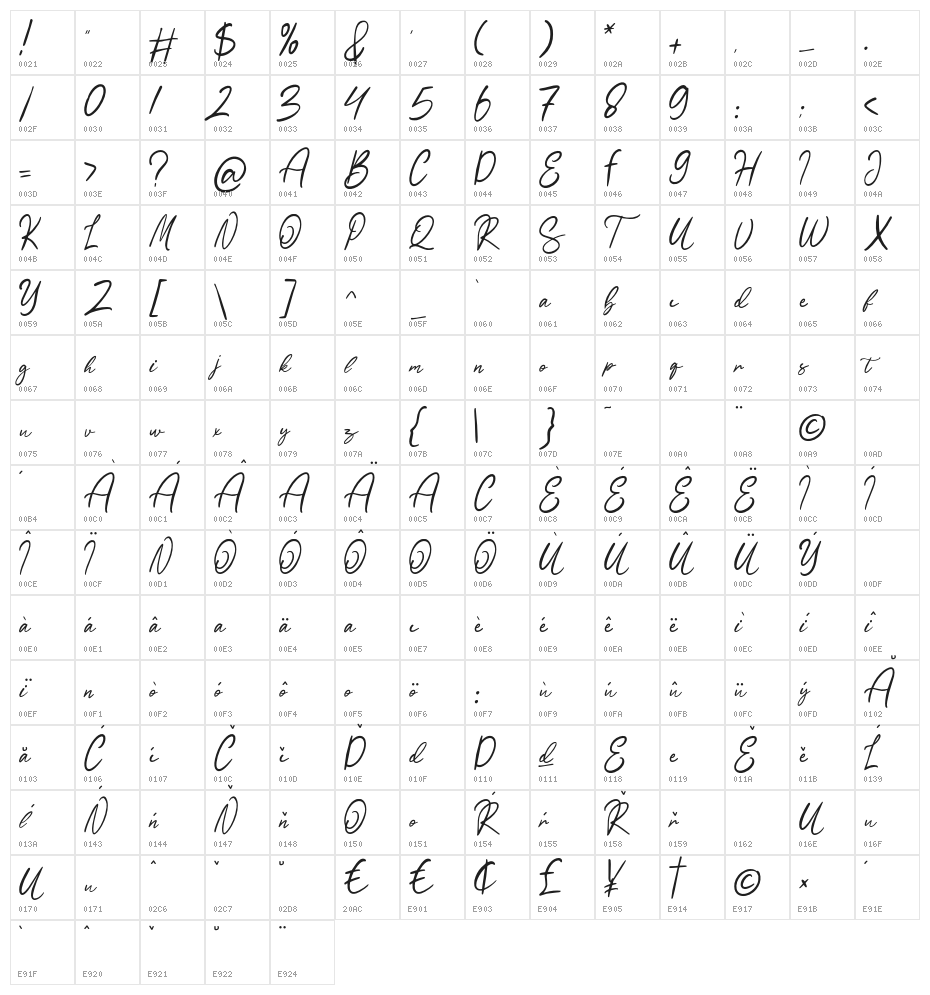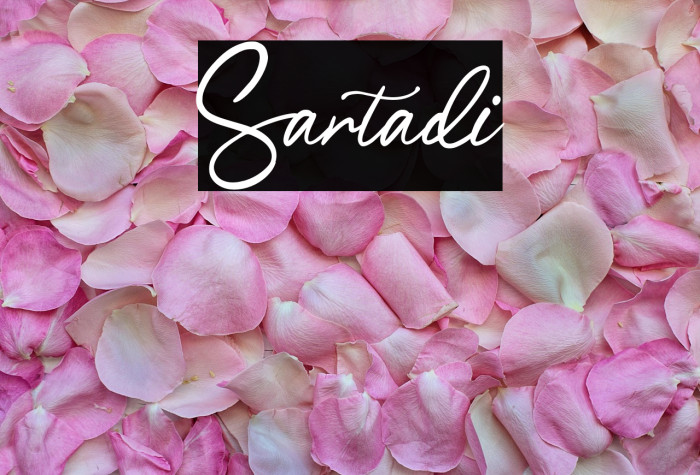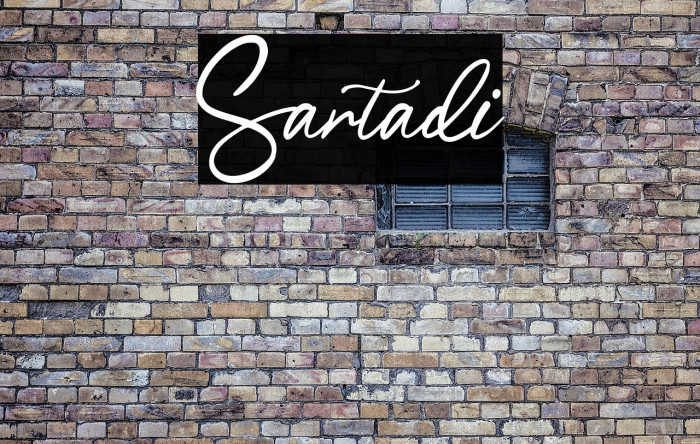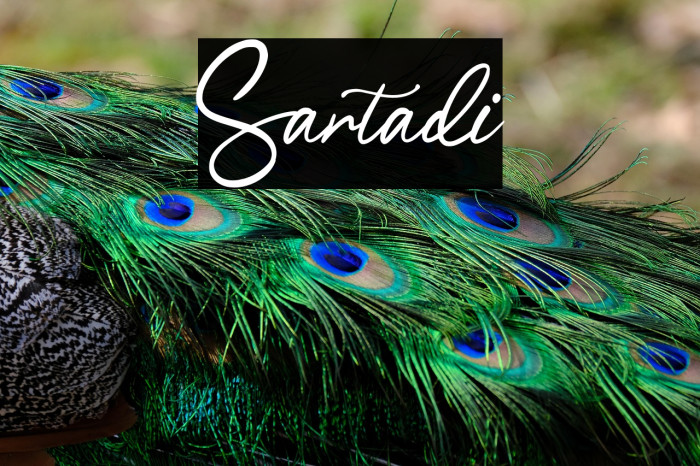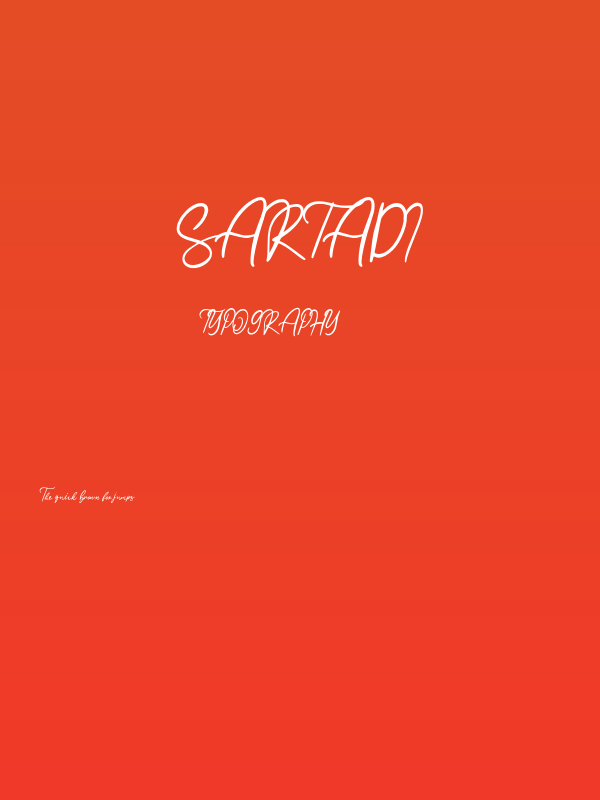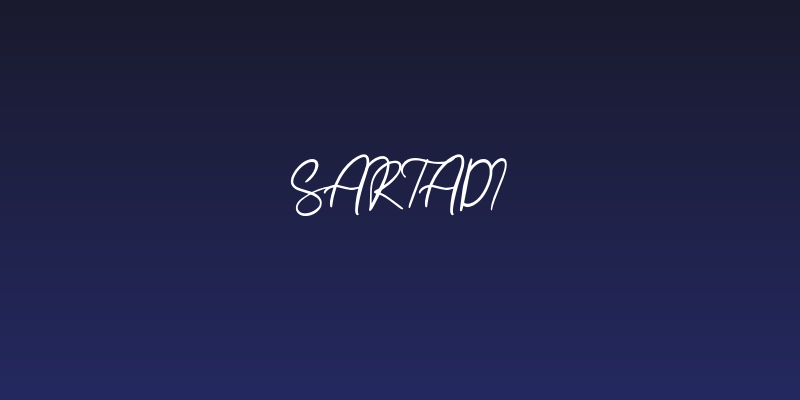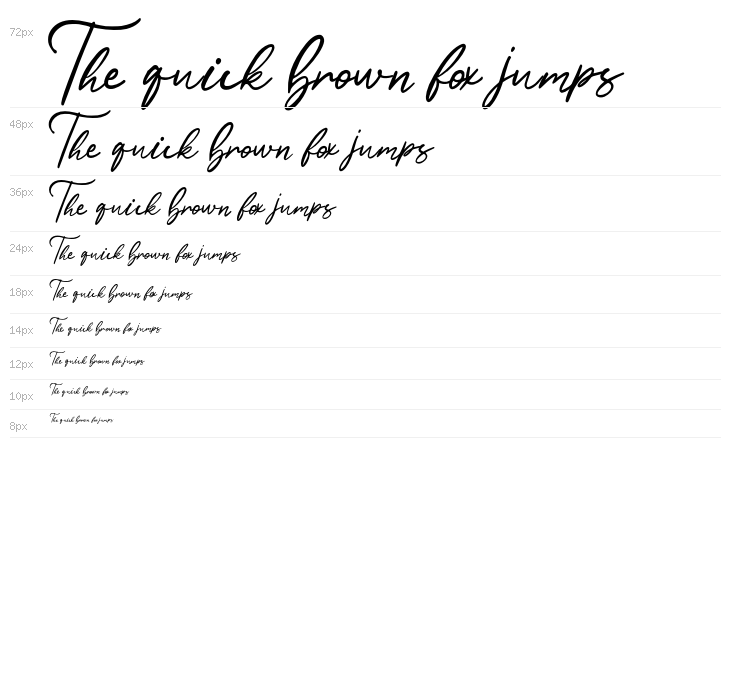
Sartadi Font
Sartadi Description
This font features a dynamic and fluid script style, characterized by its elegant and flowing letterforms. The uppercase letters are bold and expressive, with sweeping curves and a sense of motion, while the lowercase letters maintain a consistent rhythm and balance. The numerals are equally stylish, with a harmonious blend of curves and straight lines. Special characters are thoughtfully integrated, maintaining the overall aesthetic. The font's design exudes a sense of sophistication and creativity, making it suitable for a variety of applications.
| Overall Style | Elegant and Creative |
| Proposed Projects | Ideal for wedding invitations, branding, logo design, and elegant stationery. |